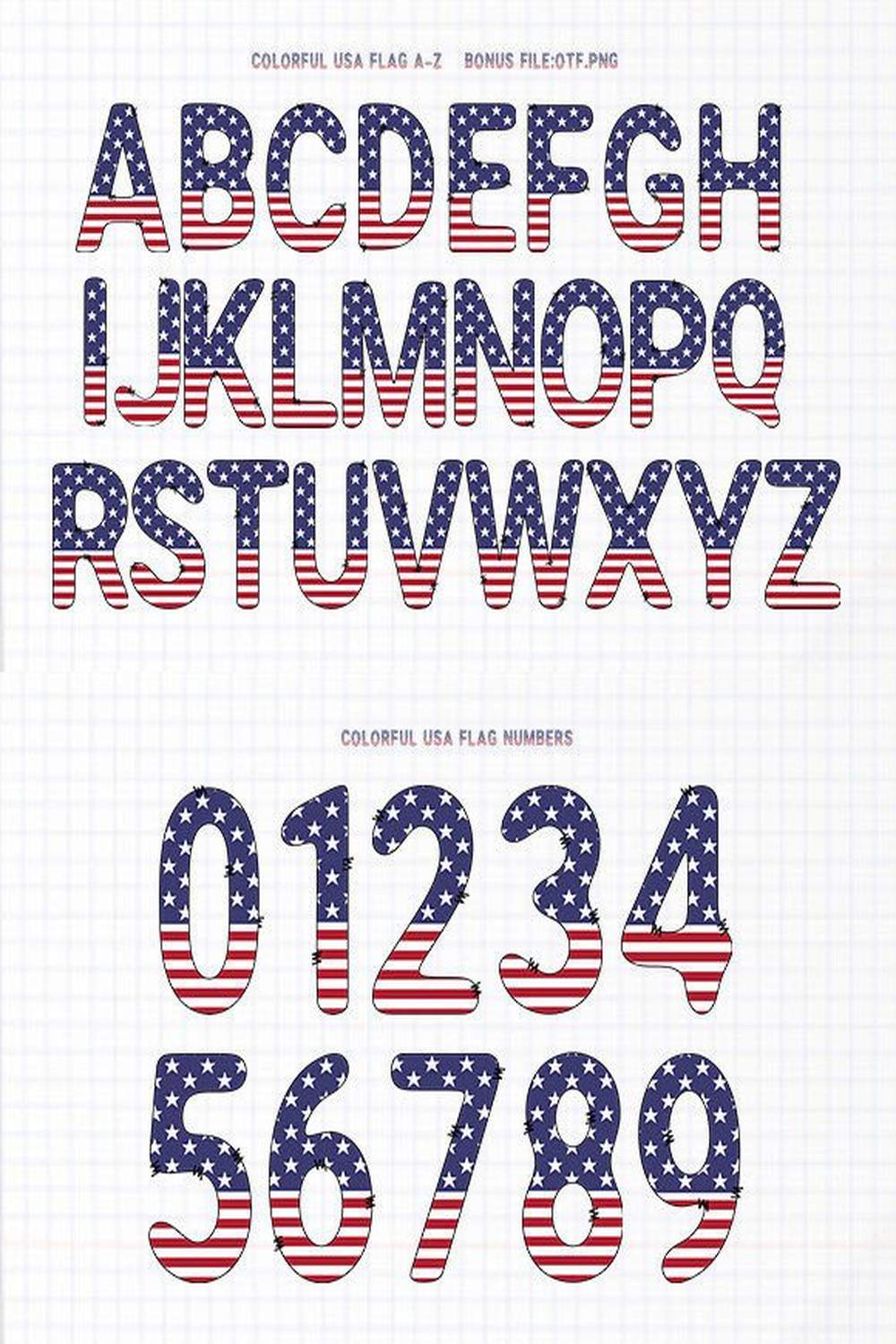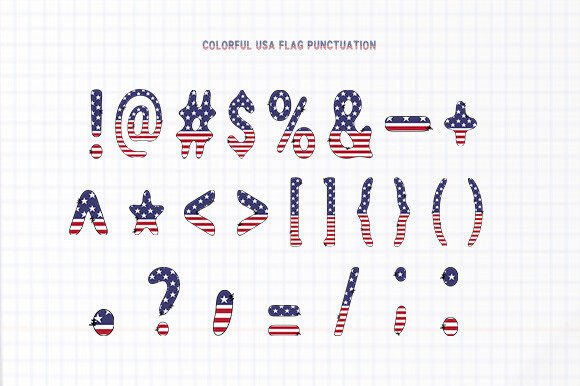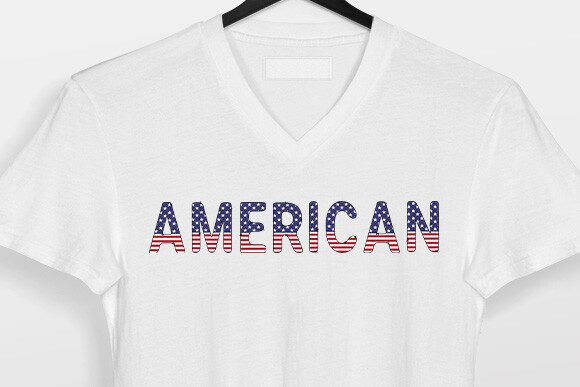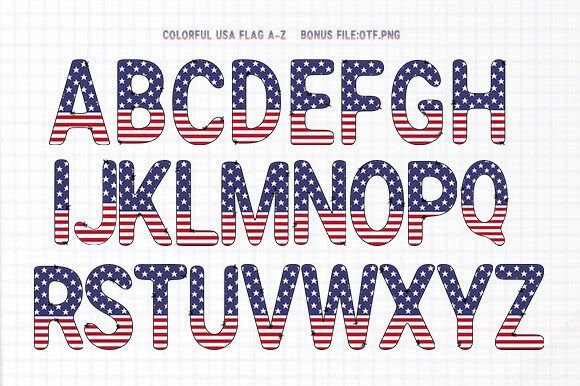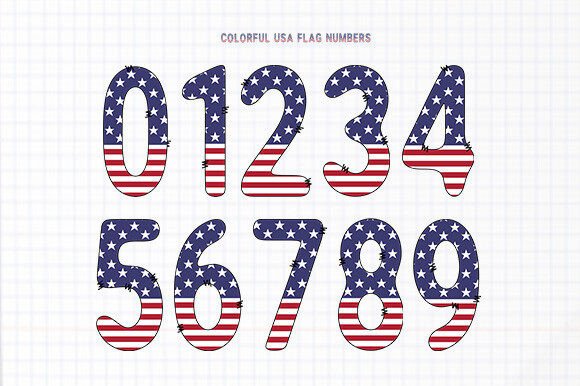
Colorful Usa Flag Font
About the Colorful Usa Flag Font
Discover the charm of Colorful Usa Flag Font. This font is a perfect blend of modern aesthetics and classic appeal. Immerse in nostalgic patriotism with the usa flag font duo, blending charm and flair for versatile apparel designs and product packaging. Perfect for 4th of July themes, this font brings vintage American character to life.